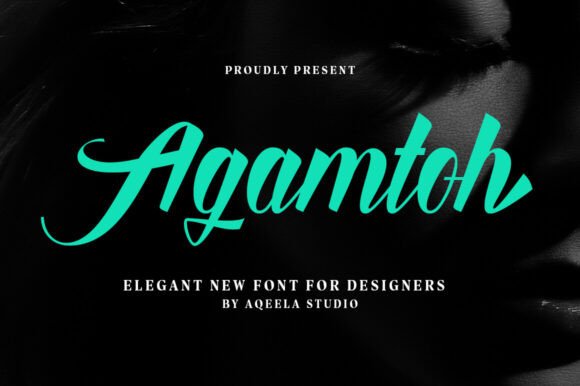
Discover the Elegance of Agamtoh Font: A Unique Fusion of Classic Sophistication and Modern Luxury
In the world of typography, few fonts manage to capture the essence of both classic elegance and contemporary sophistication as effectively as Agamtoh. This distinctive typeface is not just a font; it’s an experience that brings together the timeless charm of traditional design and the sleek, modern aesthetic of luxury typography. Whether you’re a designer looking to create a sophisticated logo, a marketer aiming to craft an attention-grabbing headline, or simply someone who appreciates the art of fine typography, Agamtoh is poised to ignite your creativity and elevate your projects to new heights.
Key Features of Agamtoh Font
- Timeless Elegance: Agamtoh’s design roots are deeply planted in classic typography, offering an elegance that never goes out of style.
- Contemporary Sophistication: With its sleek lines and modern twists, Agamtoh brings a freshness that is perfect for contemporary designs.
- Versatility: From logos and headlines to body text, Agamtoh’s versatility shines through in its application across various design projects.
- Distinctive Curves: Every curve in Agamtoh is carefully crafted to provide a luxurious feel to your typography.
Applications of Agamtoh in Design
Agamtoh’s unique blend of classic and modern elements makes it an incredibly versatile font, suitable for a wide range of design applications. Here are some of the key areas where Agamtoh can make a significant impact:
- Logo Design: The distinctive and elegant nature of Agamtoh makes it perfect for logos that aim to convey luxury, tradition, and sophistication.
- Headlines and Titles: With its contemporary twist, Agamtoh is equally effective in headlines and titles, adding a touch of modernity and flair to your typography.
- Branding and Identity: For brands looking to establish a legacy or reposition themselves in the market with a more refined and elegant image, Agamtoh can be a valuable asset.
- Packaging and Advertising: The font’s luxurious feel makes it suitable for high-end packaging and advertising materials, helping brands stand out in a crowded marketplace.
Tips for Using Agamtoh in Your Typography
To truly leverage the potential of Agamtoh, here are some tips to keep in mind:
- Pairing: Experiment with pairing Agamtoh with other fonts to create interesting contrasts. Its classic nature pairs well with modern sans-serifs for a dynamic look.
- Spacing: Pay attention to letter spacing. Agamtoh’s elegant curves can sometimes get lost if the letters are too close together.
- Size Matters: Use size variations to create hierarchy. Agamtoh maintains its luxurious feel at various sizes, making it perfect for both headlines and body text.
- Color: Choose colors that complement the luxury feel of Agamtoh. Metallic colors, deep blacks, and rich tones can enhance its sophisticated look.
Why Choose Agamtoh for Your Projects?
In a sea of fonts, Agamtoh stands out for several reasons:
- Uniqueness: Agamtoh offers a unique blend that is hard to find elsewhere, making your projects instantly recognizable.
- Emotional Connection: The elegance and sophistication of Agamtoh can help create an emotional connection with your audience, making your message more impactful.
- Professionalism: Using Agamtoh signals a level of professionalism and attention to detail that can elevate your brand’s perception.
- Creativity: With Agamtoh, you have the freedom to experiment with various design elements, ensuring your project stands out creatively.
Agamtoh is more than just a font; it’s a design statement. It brings together the best of both worlds – the elegance of classic typography and the sophistication of modern design. Whether you’re looking to create a lasting impression with a logo, headline, or any other typography project, Agamtoh offers the perfect blend of tradition and innovation. By incorporating Agamtoh into your design toolkit, you’re not just choosing a font; you’re embracing a design philosophy that values beauty, elegance, and creativity. Transcend into the unique fusion of classic elegance and contemporary sophistication with Agamtoh, and watch your designs achieve a new level of luxury and distinction.